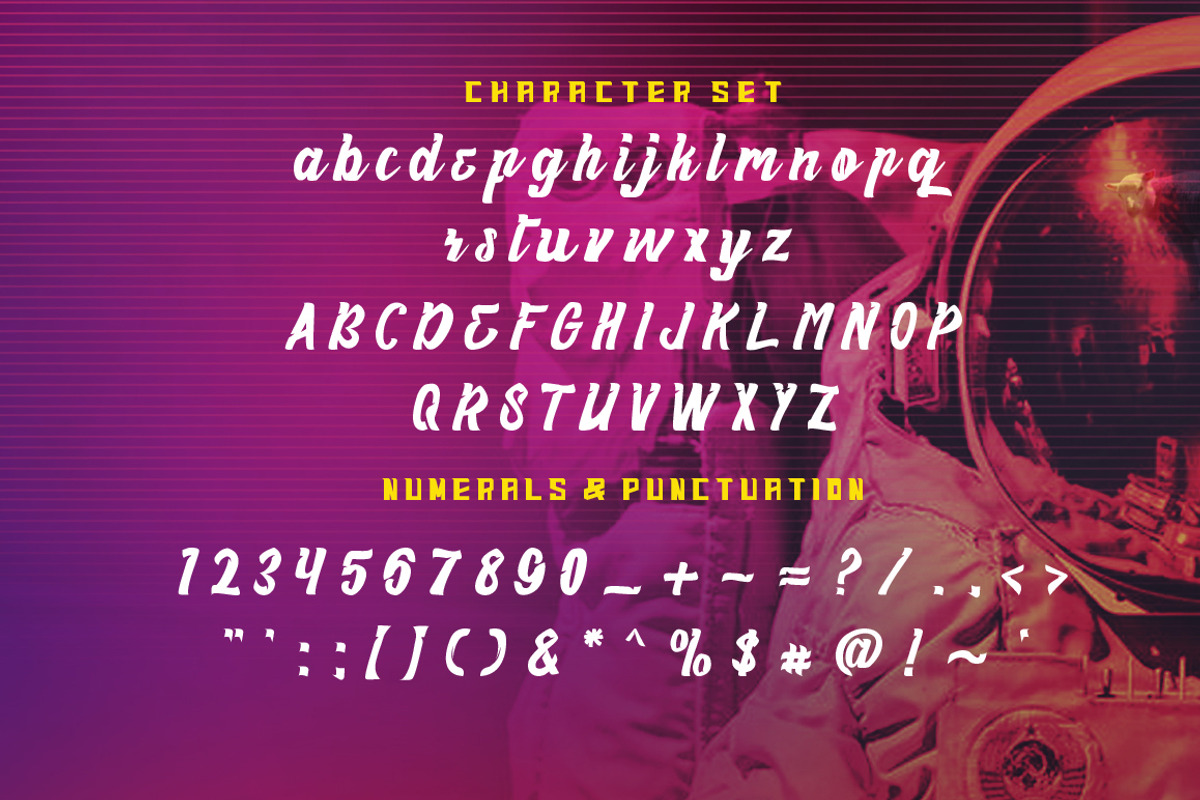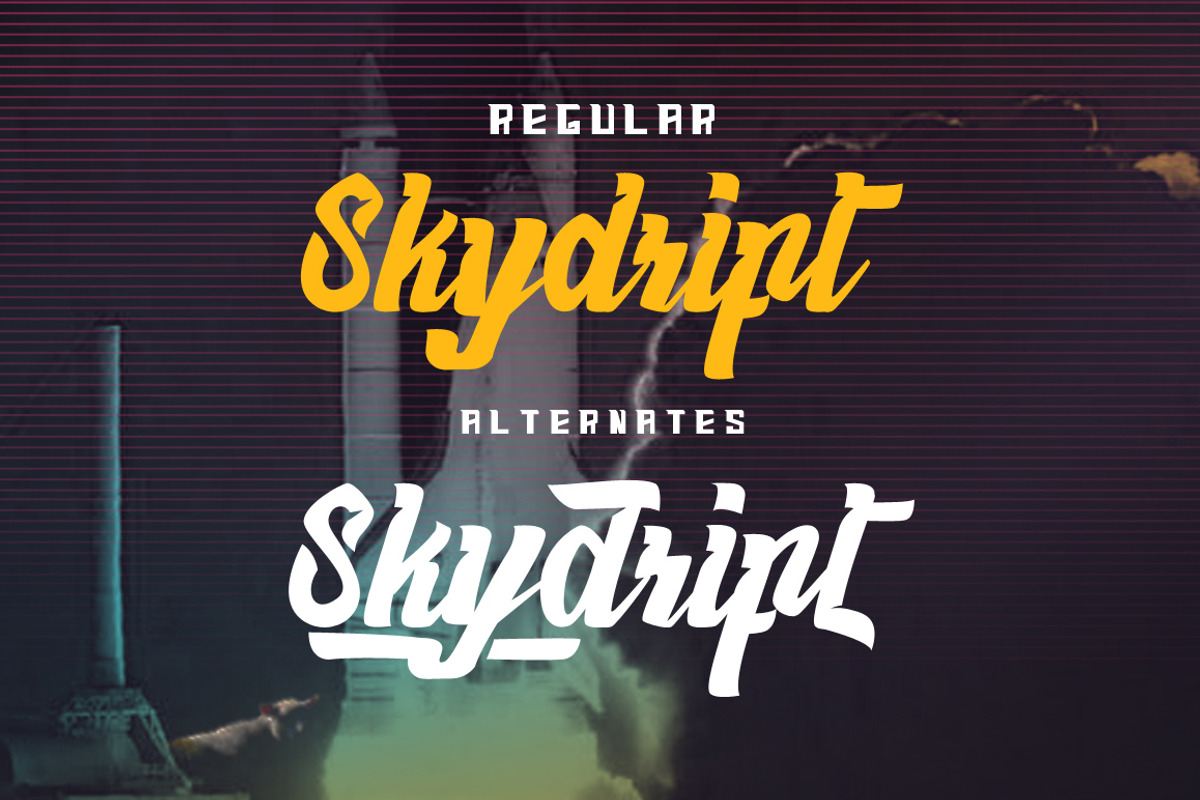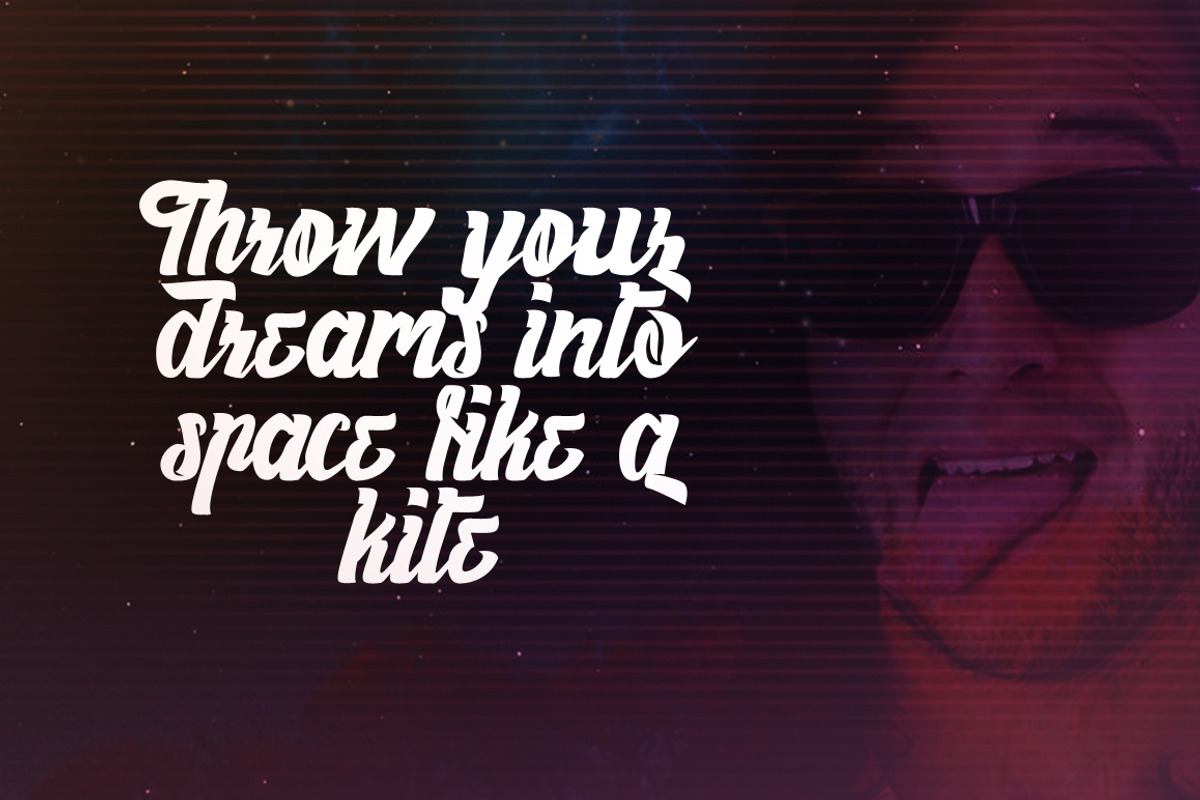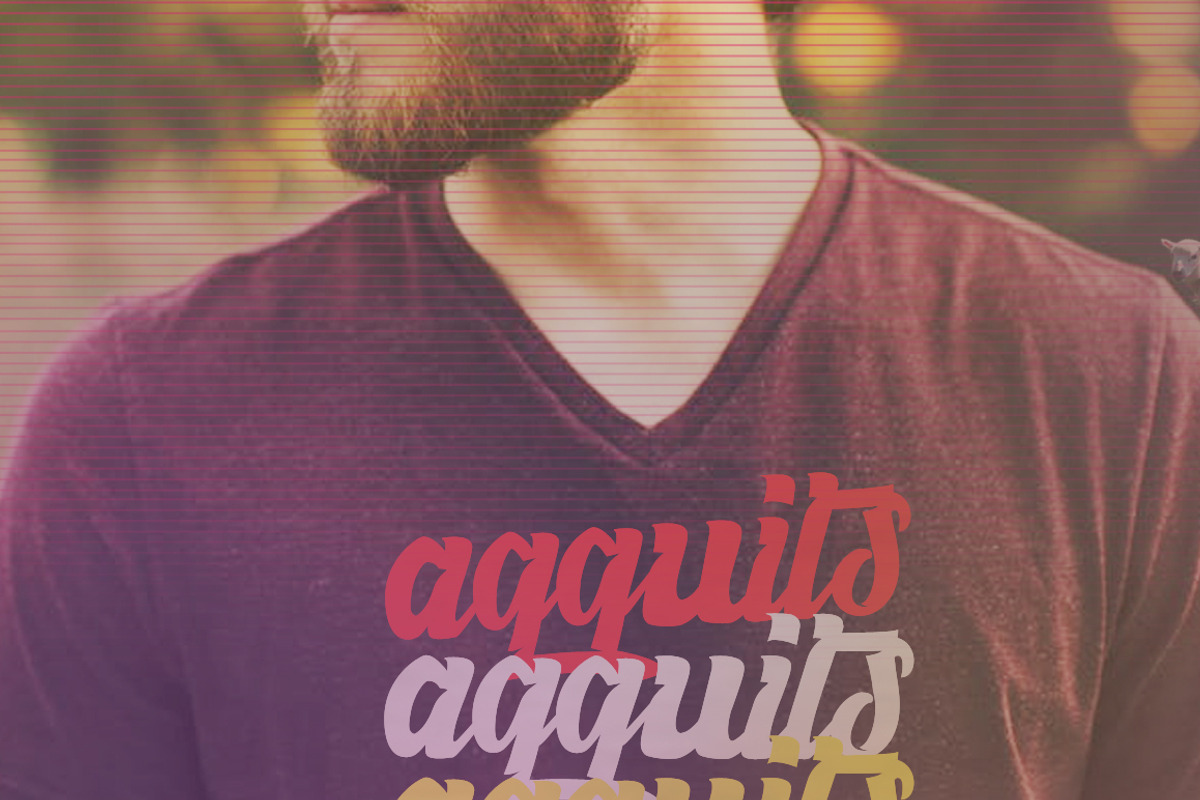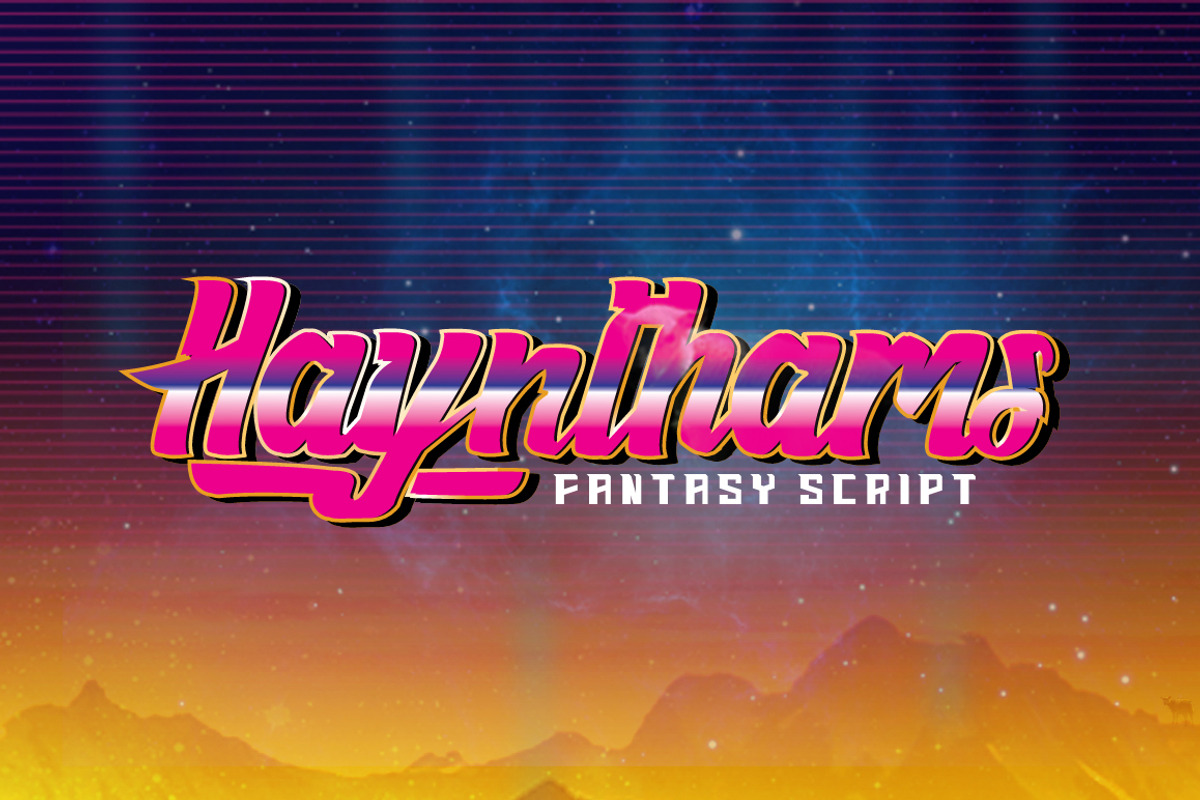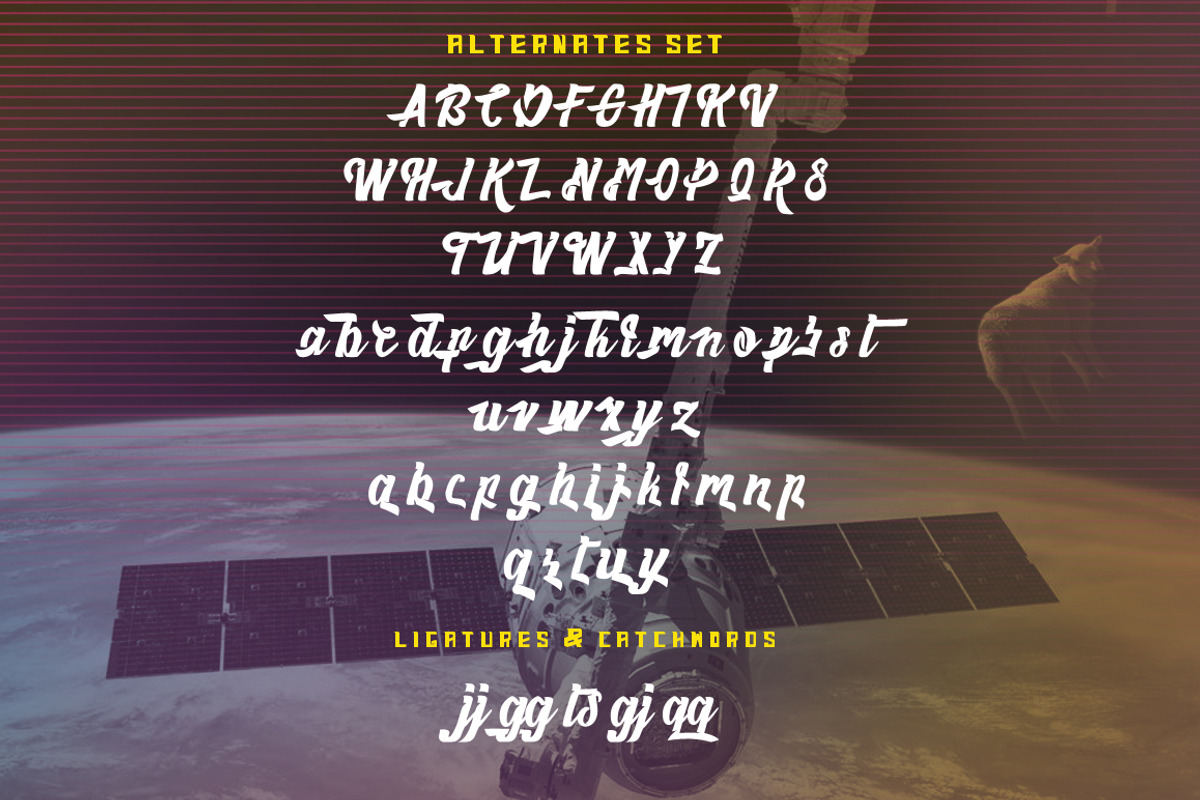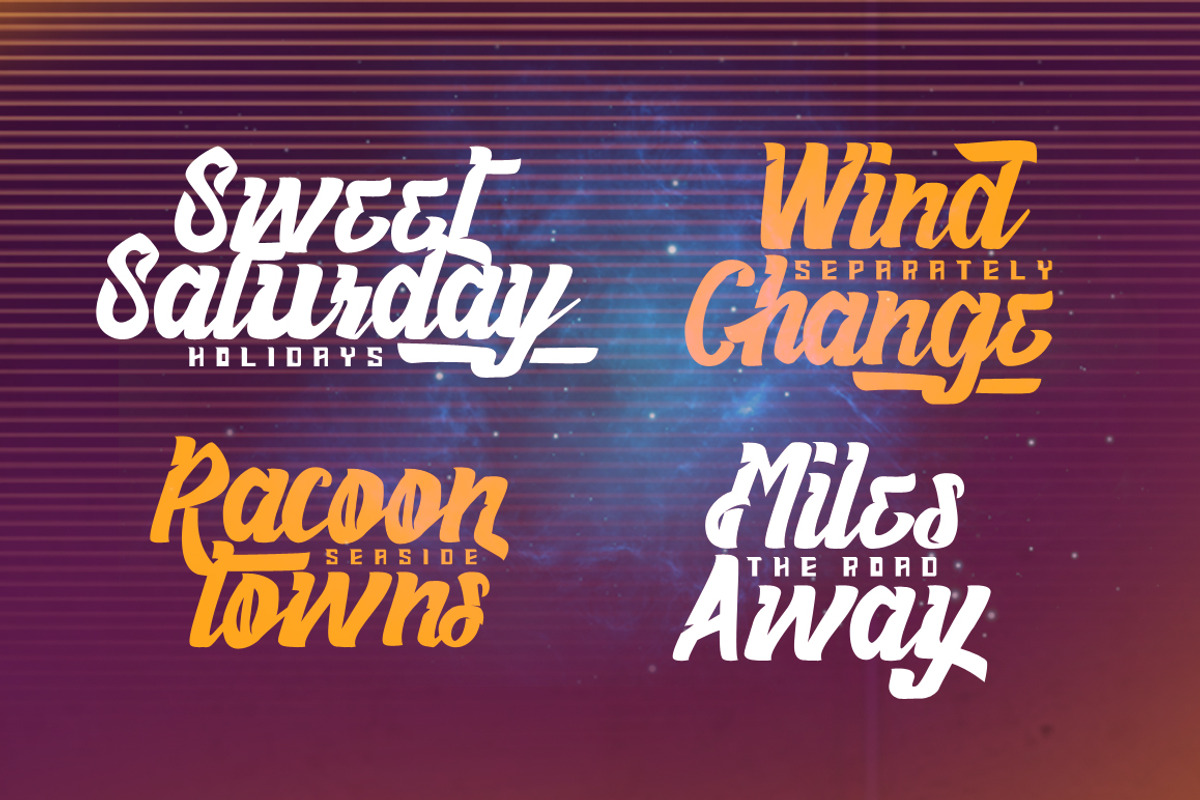
Haynthams Spacescript Font (2 in 1)
Haynthams Spacescript Font (2 in 1) by Haws.std is a font selected for branding, posters, packaging, typography.
- Because this font has more advantages, such as special opentype, alternate.
- Available into uppercase, lowercase, symbol, numeral, punctuation and including so many variant of glyph.
- This font has superiority that may not all font get, for example: stylistic alternates.
- Haynthams Sans Regular
- Haynthams Regular
Why Haynthams Spacescript Font (2 in 1) is worth a look
Haynthams Spacescript Font (2 in 1) by Haws.std fits naturally into Branding, posters, packaging, typography.